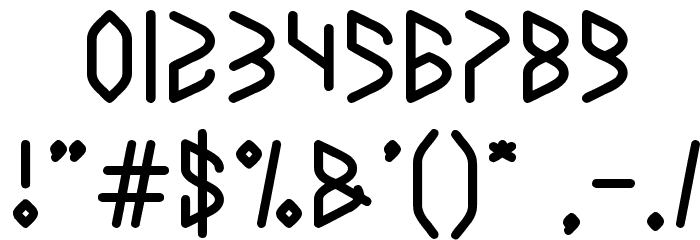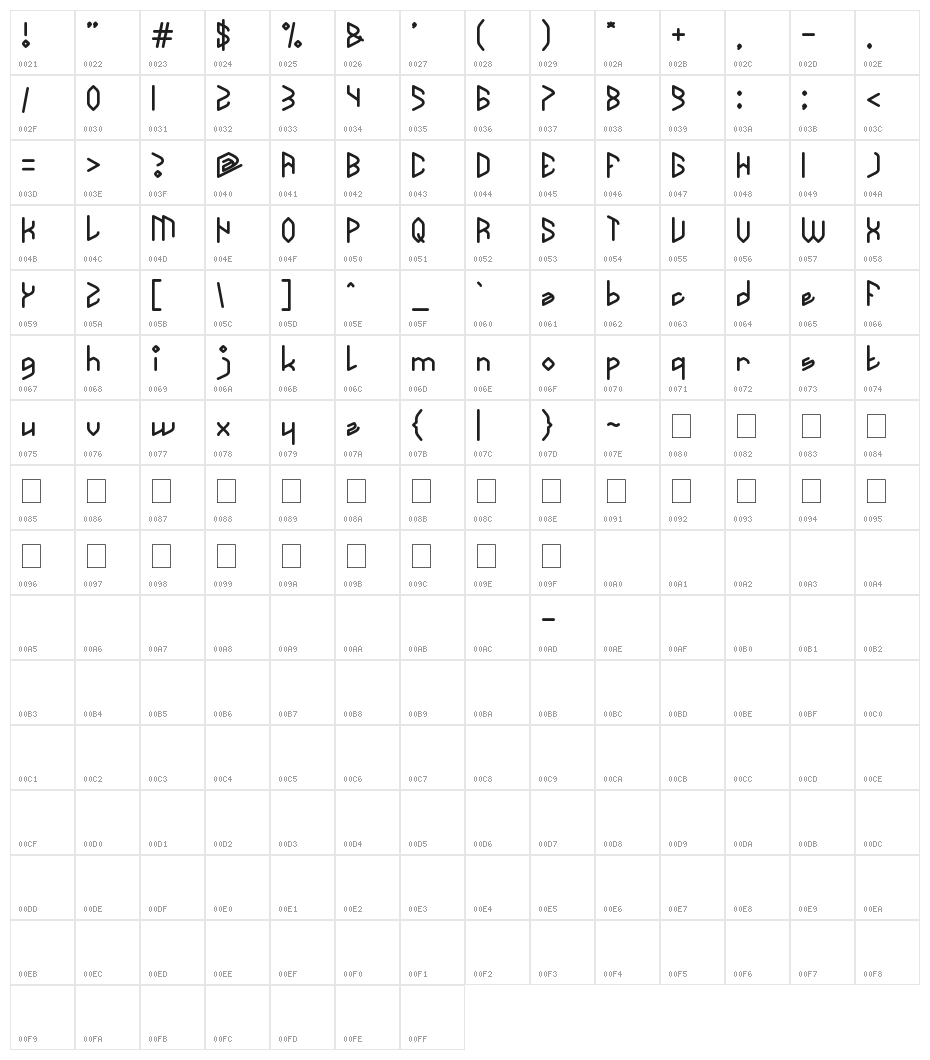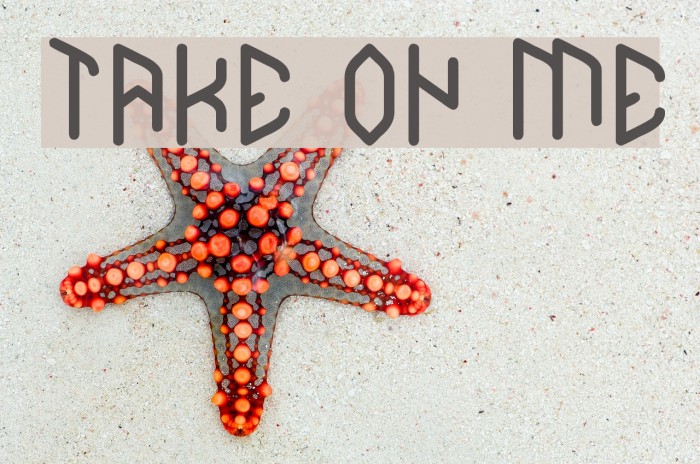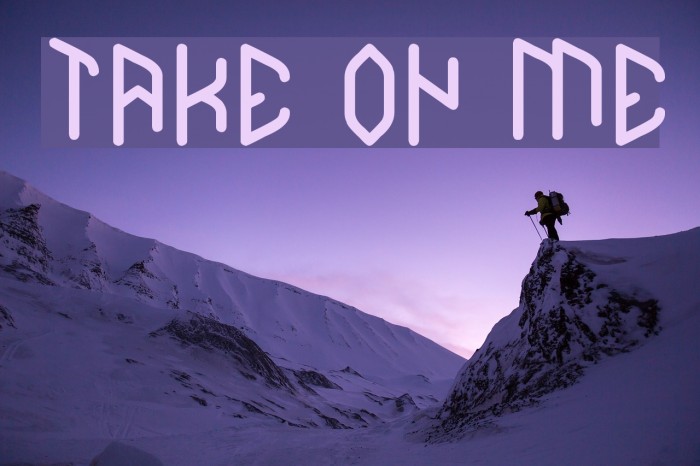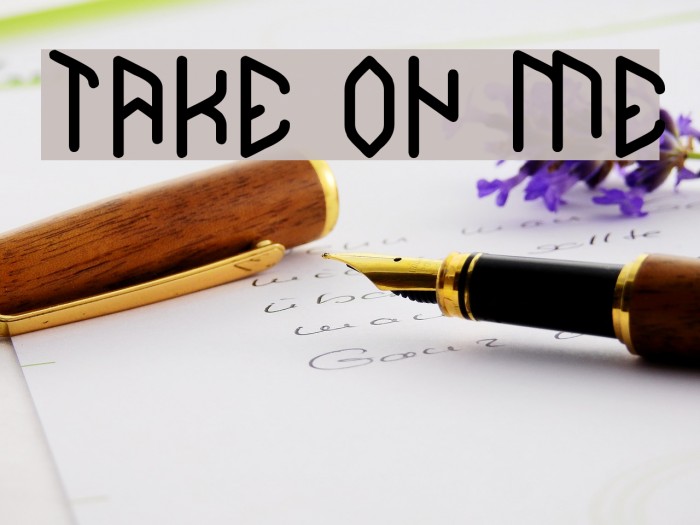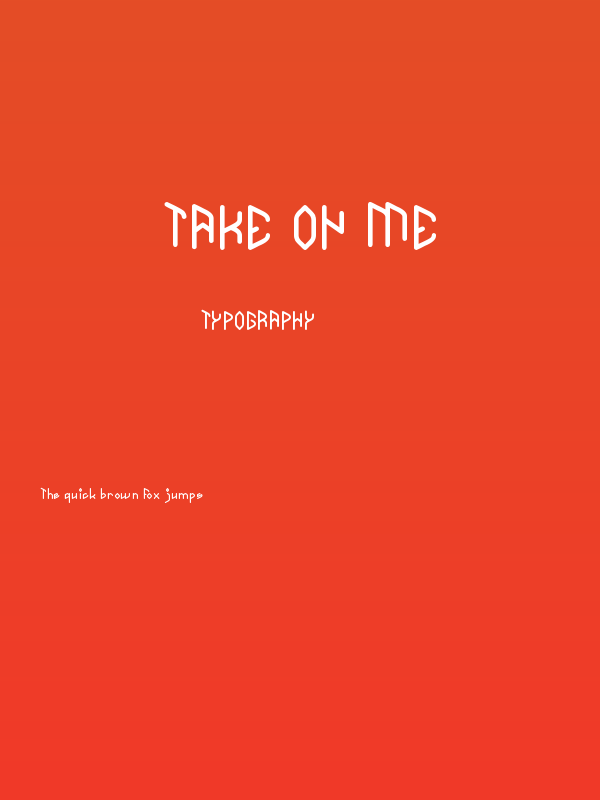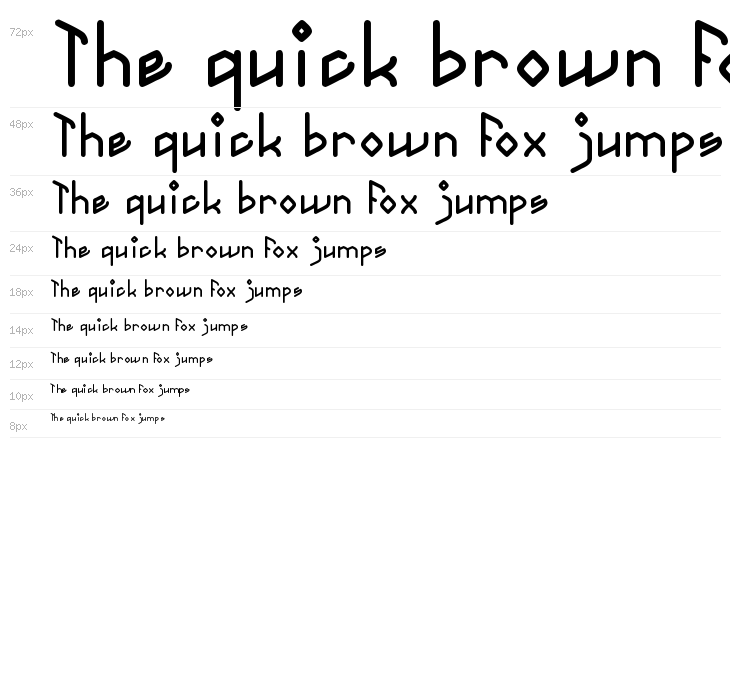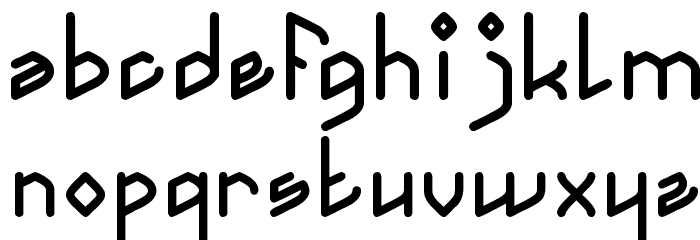
TAKE ON ME Font
TAKE ON ME Description
This font features a unique and modern design with angular, geometric shapes that give it a futuristic feel. The uppercase letters are bold and striking, with sharp edges and a consistent stroke width that adds to its contemporary style. The lowercase letters maintain the same geometric aesthetic, providing a cohesive look across the alphabet. Numbers and special characters are designed with the same attention to detail, ensuring versatility and readability. The overall appearance is clean and structured, making it suitable for various creative projects.
| Use Case | Logos, Posters, Branding |
| Proposed Projects | Ideal for branding, logos, posters, and any project requiring a modern, futuristic look. |